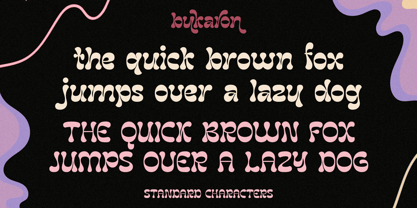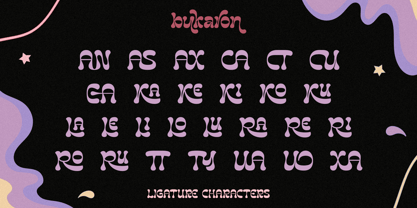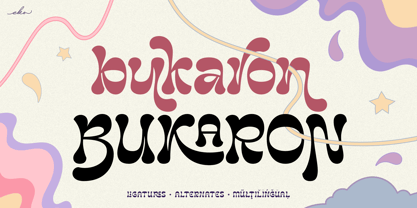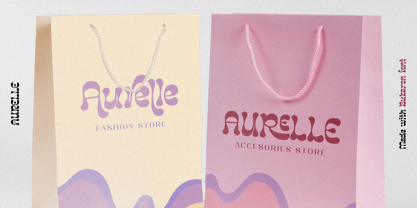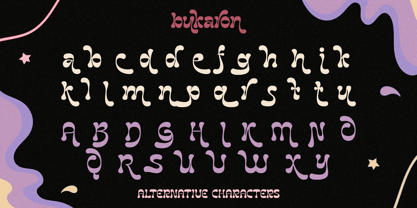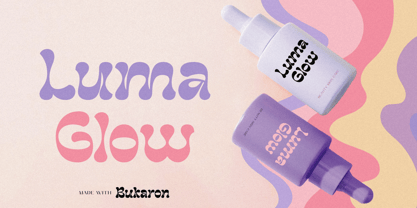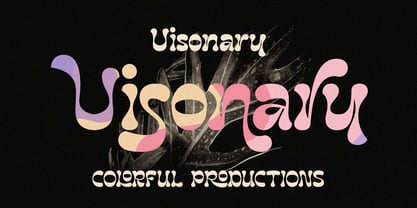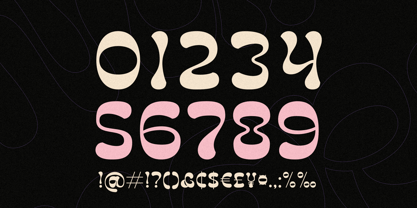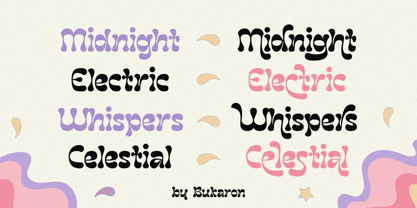
Bukaron
by Ekahermawan
The Bukaron Font Family was designed by Putu Eka Hermawan and published by Ekahermawan. Bukaron contains 1 styles. More about this family
Introducing Bukaron, the ultimate retro display font designed to bring boldness and vintage flair to your designs. With its eye-catching aesthetic, Bukaron is perfect for a wide range of creative projects, from posters and logos to packaging and more. This font is packed with unique features, including a variety of alternative and ligature characters that allow for endless creative possibilities, helping your typography stand out with personality and style. Bukaron also includes multilingual support, making it easy to design for a global audience with ease. Whether you're crafting a retro-inspired logo or a vibrant poster, Bukaron’s versatility is sure to elevate your designs. Perfect for vintage branding, album covers, custom apparel, and other creative projects, Bukaron combines vintage charm with modern functionality, giving you the flexibility to explore its full potential. Embrace your creativity by experimenting with different combinations of alternative and ligature characters to create one-of-a-kind designs that truly stand out. With its bold strokes, smooth curves, and vintage appeal, Bukaron is a must-have for any designer looking to add a unique retro touch to their work.
Designers: Putu Eka Hermawan
Foundry: Ekahermawan